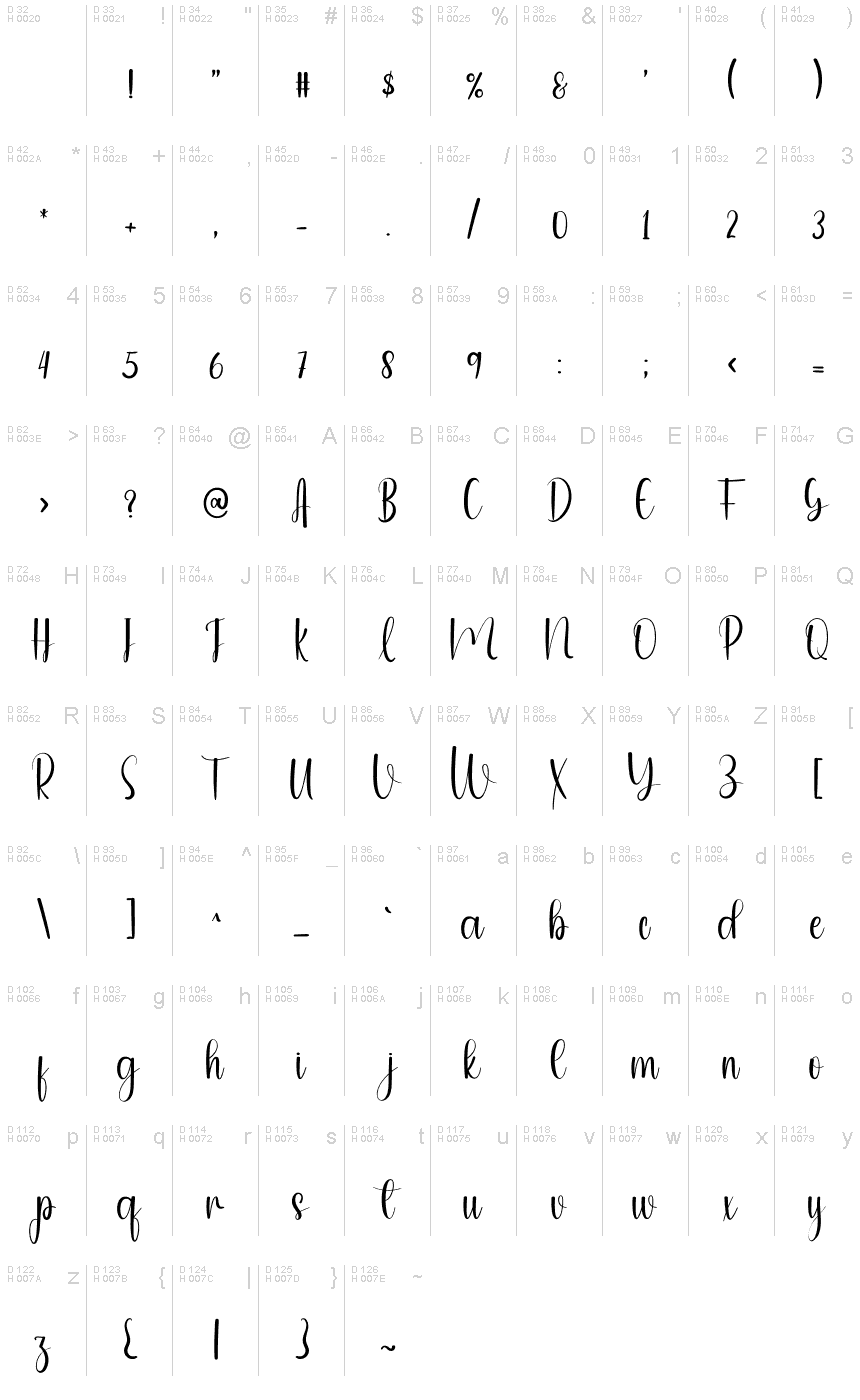
Christmas Party
Christmas Party is a charming handwritten font designed by PiPi Creative that exudes warmth and festivity. Its semi-light weight paired with a condensed width gives it an elegantly slender profile, while the fluidity of its characters adds a personal touch reminiscent of a heartfelt holiday greeting card.
The aesthetic appeal of Christmas Party lies in its casual yet sophisticated style, making it an ideal choice for invitations, seasonal marketing, and any project aiming to convey intimacy and celebration. Each stroke resonates with the joyous spirit of holiday gatherings, bringing an inviting and playful atmosphere to your designs.
Whether you're crafting social media graphics or designing bespoke gift tags, the Christmas Party font is versatile enough to elevate your creative endeavors with its unique blend of casual charm and stylish flair.